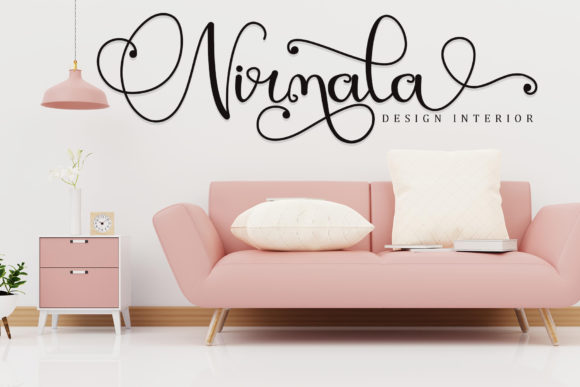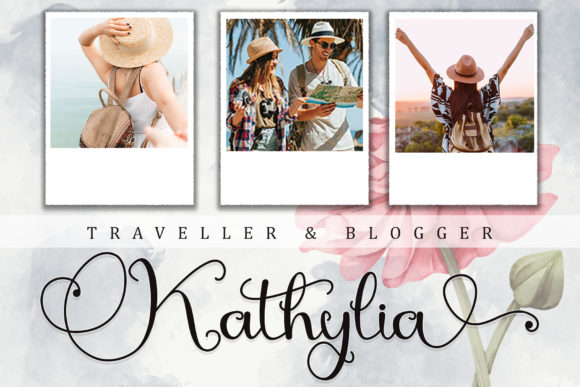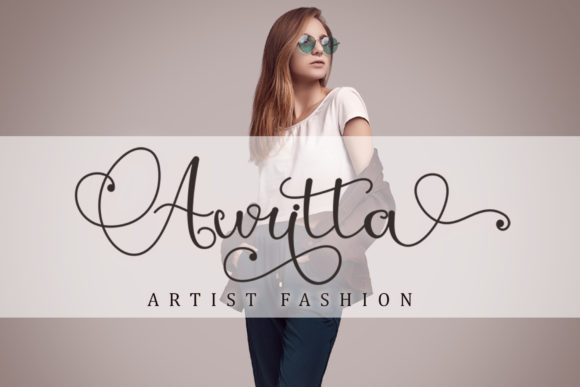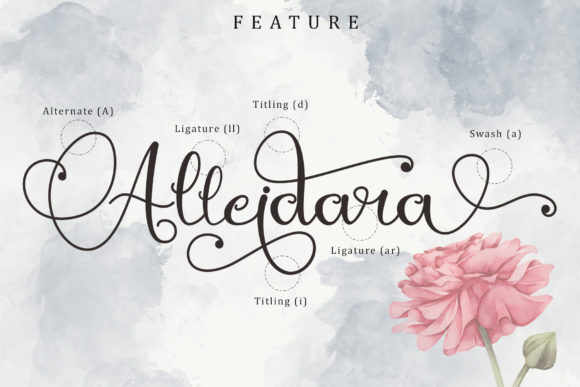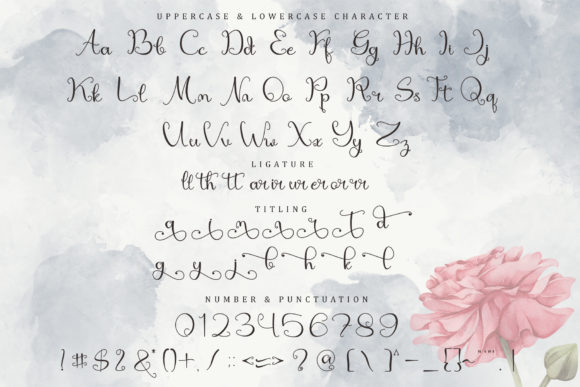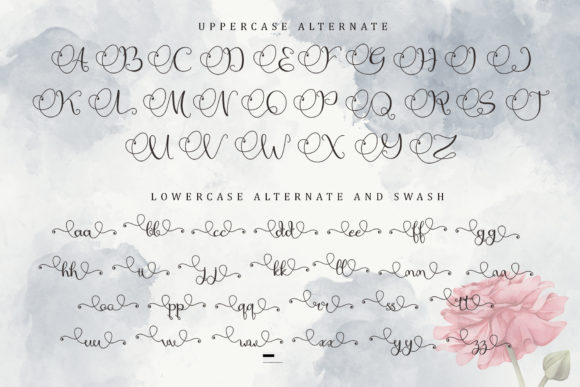
Introduction to Mirandany Font
Have you ever been scribbling down notes or designing a project, only to realize that the perfect handwritten touch is missing? That’s when I stumbled upon the Mirandany Font, and my creative world changed forever. Its beautiful, flowing lines and stunning alternates added a level of sophistication to my design that I never thought possible.
As a designer, I know how valuable it is to have high-quality design resources like the Mirandany Font at our fingertips. Whether you’re working on a wedding invitation, a thank you card, or a logo, this font is sure to elevate your creative project. With its varying baseline and smooth lines, it’s perfect for designers who want to add a personal touch to their designs.
Key Features of Mirandany Font
- High-quality design resource suitable for creative projects, with a unique and stylish aesthetic.
- Features a large character set, including uppercase and lowercase letters, numbers, and punctuation marks.
- Designed to be highly legible, even at small font sizes, making it ideal for use in a variety of creative projects.
Honest Review: Mirandany Font
Here are some things that work well with the Mirandany Font: ✨
- The font’s elegant and modern design makes it perfect for a wide range of creative projects.
- The transparent background allows for seamless integration with various design elements.
- The font’s versatility makes it suitable for both digital and print-based projects.
- The font might not be ideal for projects requiring a bold, chunky font style.
- The font’s character set is limited, which may cause issues for projects requiring extensive character support.
Overall, I’m impressed with the Mirandany Font’s high-quality design and versatility. While it may have some limitations, it’s an excellent choice for designers looking for a free design resource that can elevate their creative projects.
The Mirandany Font is perfect for creating visually appealing designs, such as logos, business cards, and social media graphics. Its high quality and transparent background make it an ideal choice for creative projects.
To get the most out of the Mirandany Font, use it in conjunction with other design elements, such as images and shapes. Experiment with different font sizes and styles to add depth and interest to your design.